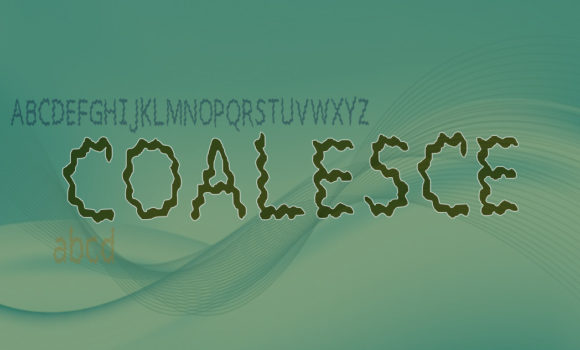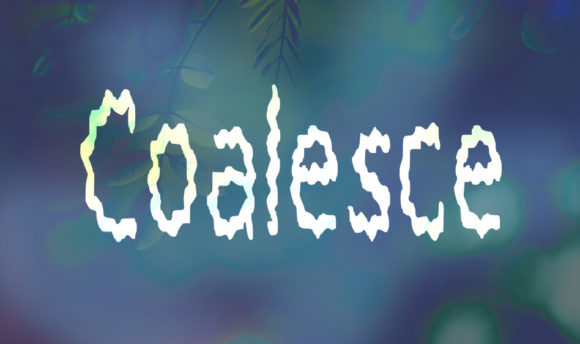
Introducing Coalesce Font: The Cool and Wavy Display Font for Creative Projects
Are you a designer or crafter looking for a unique and eye-catching font to elevate your creative projects? Look no further than Coalesce Font, a cool and wavy display font that’s perfect for making a statement. With its distinctive wavy lines and fluid curves, Coalesce Font is ideal for a wide range of applications, from cards and invitations to quotes, product headings, and more.
What Makes Coalesce Font So Special?
Coalesce Font is a carefully crafted display font that’s designed to add a touch of personality and style to your designs. Its wavy lines and fluid curves give it a dynamic and playful feel that’s sure to capture attention. Whether you’re creating a bold and eye-catching headline or a beautiful and elegant invitation, Coalesce Font is the perfect choice.
One of the key features that sets Coalesce Font apart is its versatility. This font can be used for a wide range of projects, from formal events like weddings and galas to more casual applications like social media graphics and blog posts. Its unique and distinctive style makes it perfect for designers and crafters who want to add a personal touch to their work.
Uses for Coalesce Font
So, what can you use Coalesce Font for? The possibilities are endless! Here are just a few ideas to get you started:
- Cards and Invitations: Coalesce Font is perfect for creating beautiful and elegant cards and invitations for special occasions like weddings, birthdays, and holidays.
- Quotes and Posters: Add a touch of personality and style to your quotes and posters with Coalesce Font’s dynamic and playful lines.
- Product Headings: Use Coalesce Font to create eye-catching product headings that will help your products stand out.
- Social Media Graphics: Coalesce Font is perfect for creating bold and eye-catching social media graphics that will help you grab attention and engage your audience.
- Blog Posts: Add a personal touch to your blog posts with Coalesce Font’s unique and distinctive style.
Why Choose Coalesce Font?
So, why should you choose Coalesce Font for your next project? Here are just a few reasons:
- Unique and Distinctive: Coalesce Font is a one-of-a-kind font that’s sure to make your designs stand out.
- Versatile: This font can be used for a wide range of projects, from formal events to casual applications.
- Easy to Read: Despite its wavy lines and fluid curves, Coalesce Font is easy to read and understand.
- High-Quality: Coalesce Font is a high-quality font that’s designed to deliver exceptional results.
Tips for Using Coalesce Font
Here are a few tips for getting the most out of Coalesce Font:
- Use it sparingly: Coalesce Font is a bold and eye-catching font, so use it sparingly to avoid overwhelming your designs.
- Experiment with colors: Coalesce Font looks great in a wide range of colors, so don’t be afraid to experiment and find the perfect color for your project.
- Pair it with other fonts: Coalesce Font pairs well with a wide range of other fonts, so try pairing it with a simpler font to create a bold and eye-catching contrast.
In conclusion, Coalesce Font is a cool and wavy display font that’s perfect for designers and crafters who want to add a touch of personality and style to their creative projects. With its unique and distinctive style, versatility, and high-quality design, Coalesce Font is the perfect choice for a wide range of applications. So why wait? Download Coalesce Font today and start creating stunning designs that will leave a lasting impression!